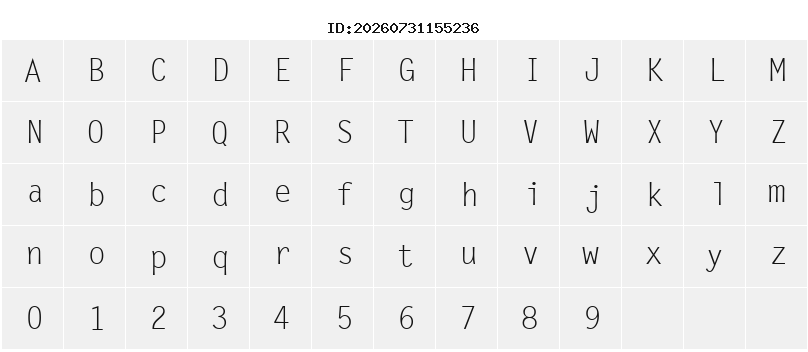
LetterGothic Preview
• Font Name: LetterGothic
• Designer: SoftMaker Software GmbH
• Manufacturer: SoftMaker Software GmbH
About LetterGothic.ttf
LetterGothic.ttf is a modern, elegant sans-serif font designed for ultimate readability and visual harmony. Perfect for branding, headlines, web design, and print materials.